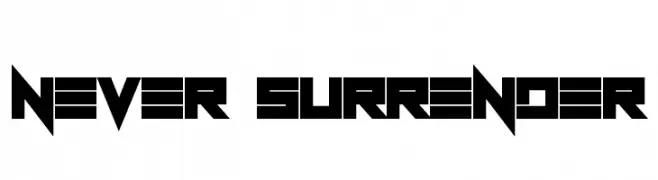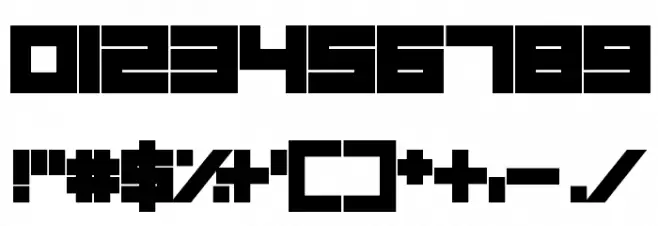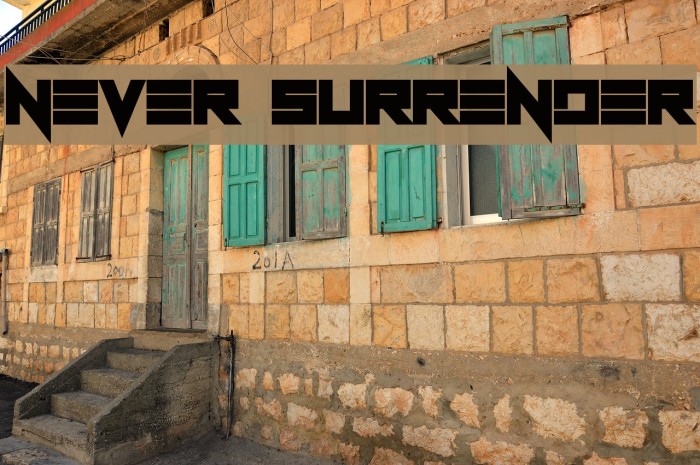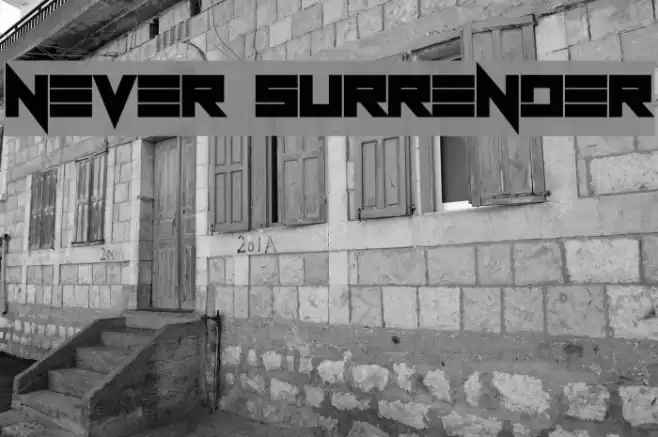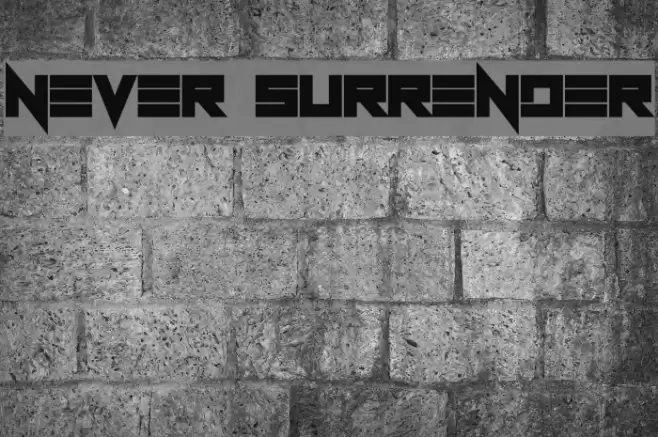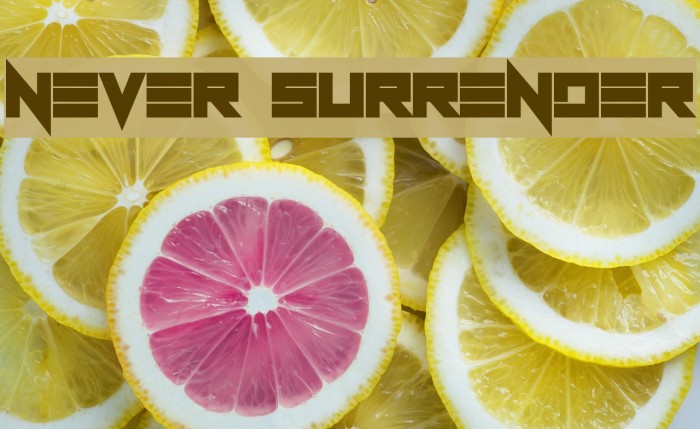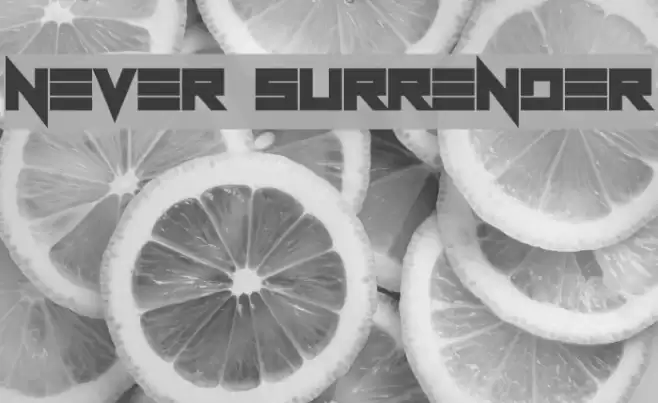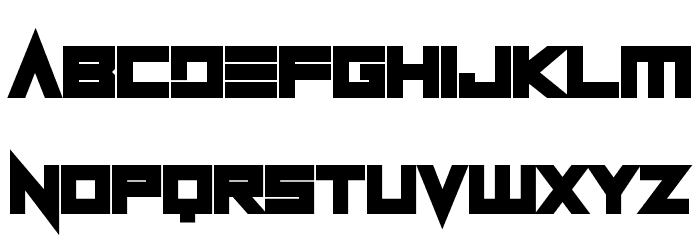
Never Surrender Font
Never Surrender Description
This font exhibits a bold, geometric style with sharp angles and a futuristic appearance. The characters are constructed with thick, block-like forms and feature unique cutouts and lines that add a sense of movement and energy. The uppercase and lowercase letters maintain a consistent design, emphasizing uniformity and strength. The numerals and special characters follow the same aesthetic, ensuring a cohesive look across all glyphs. This font's striking design makes it ideal for projects that require a modern and impactful visual presence.
| Proposed Projects | Ideal for sci-fi themed designs, video game graphics, posters, and branding that requires a modern, bold look. |